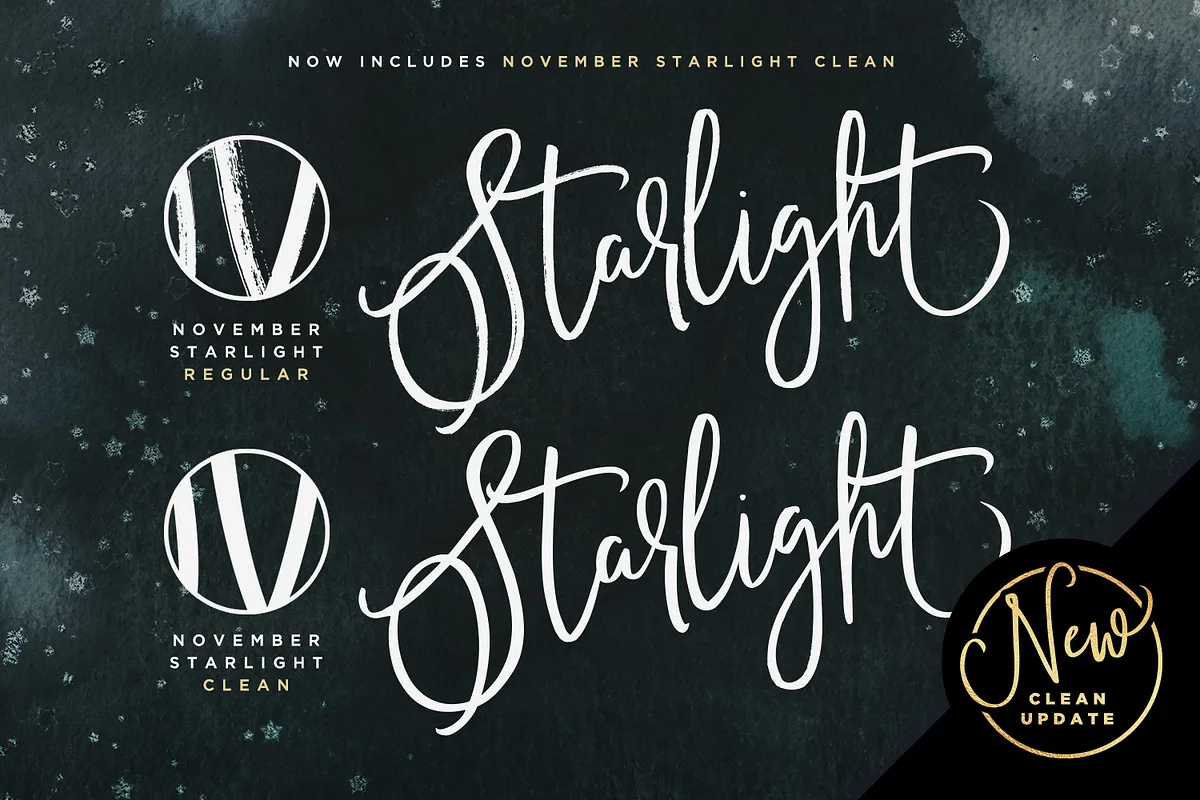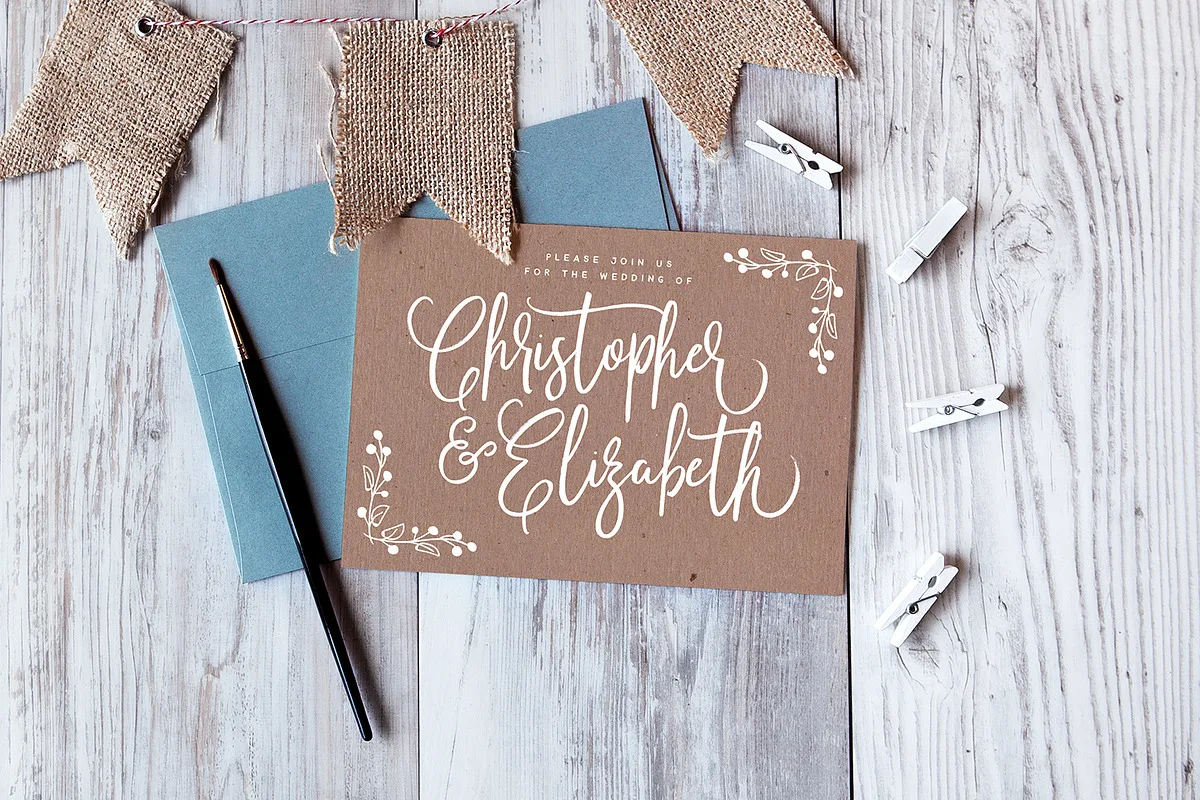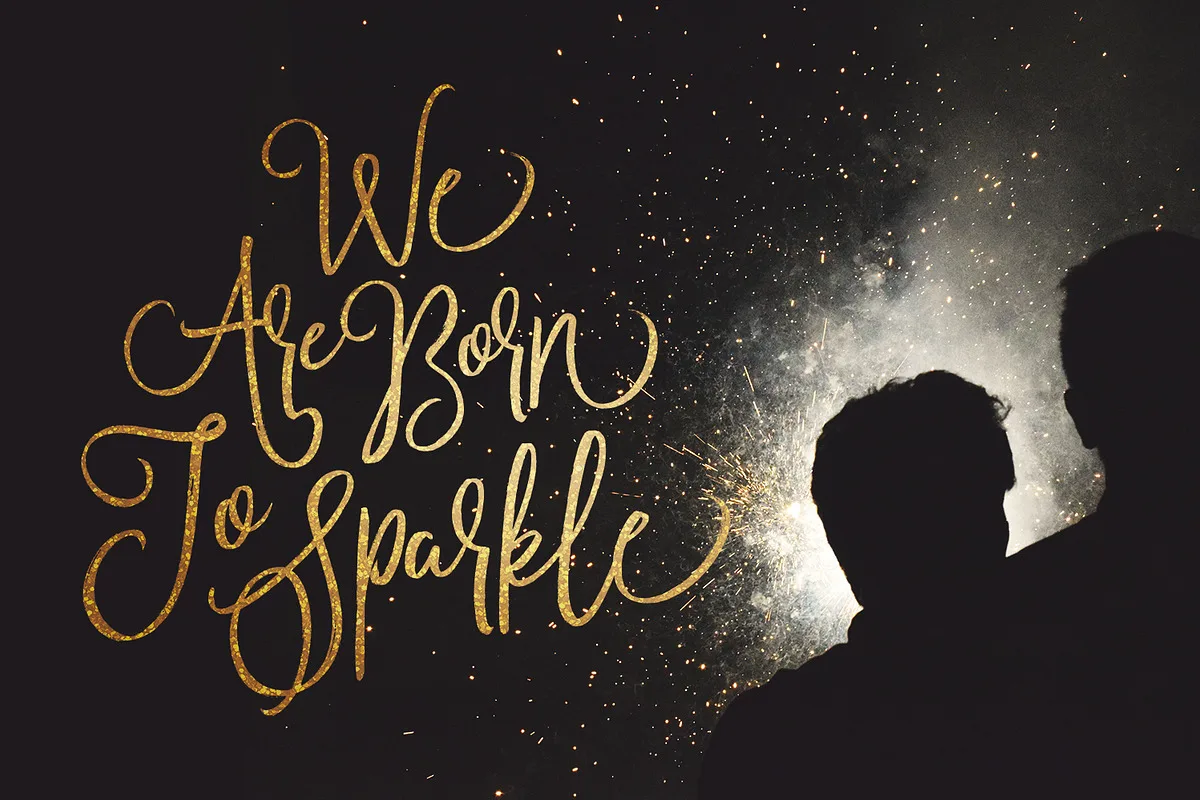
Thanks for checking out November Starlight! A lovingly hand-painted script font, fantastically elegant & eccentric with a sprinkle of carefree fun. November Starlight doesn’t play by the rules – with extra bouncy characters, long vertical brush strokes and authentic hand-painted edges, it’s bound to make a bold statement on anything from greeting cards and invitations, to personalised logos and handwritten quotes.